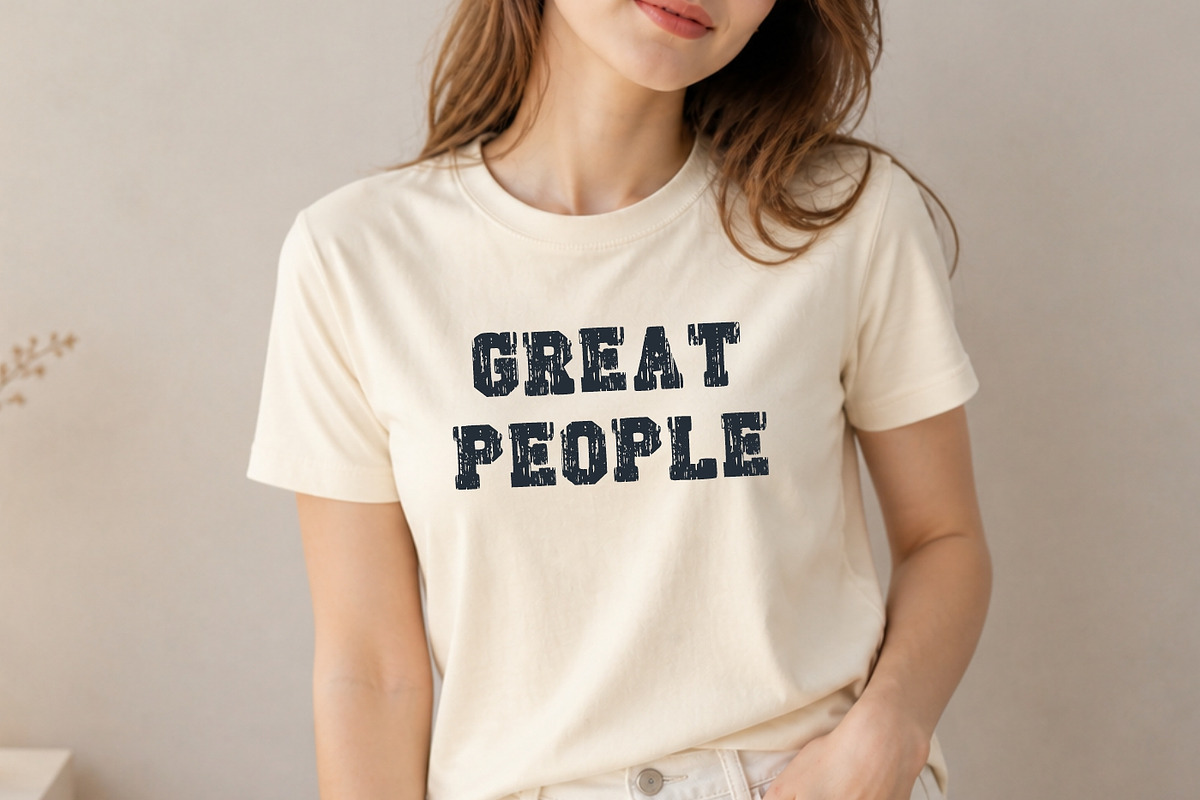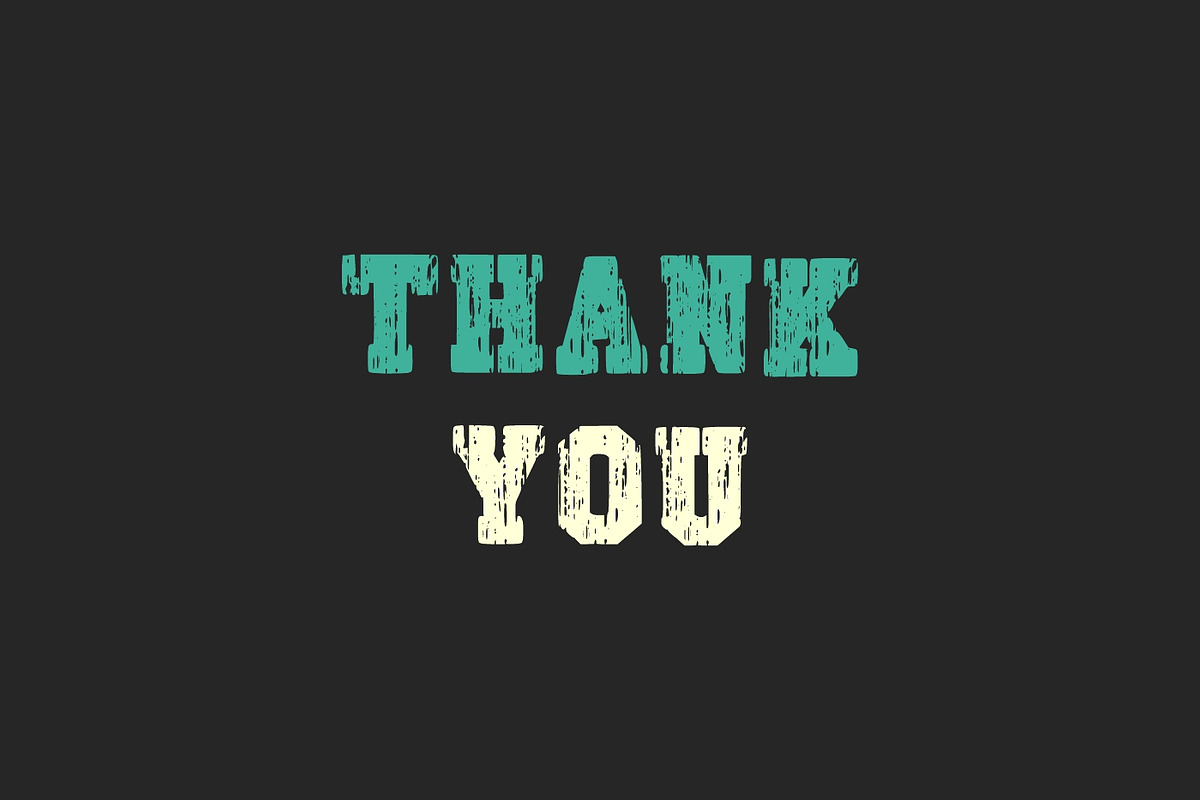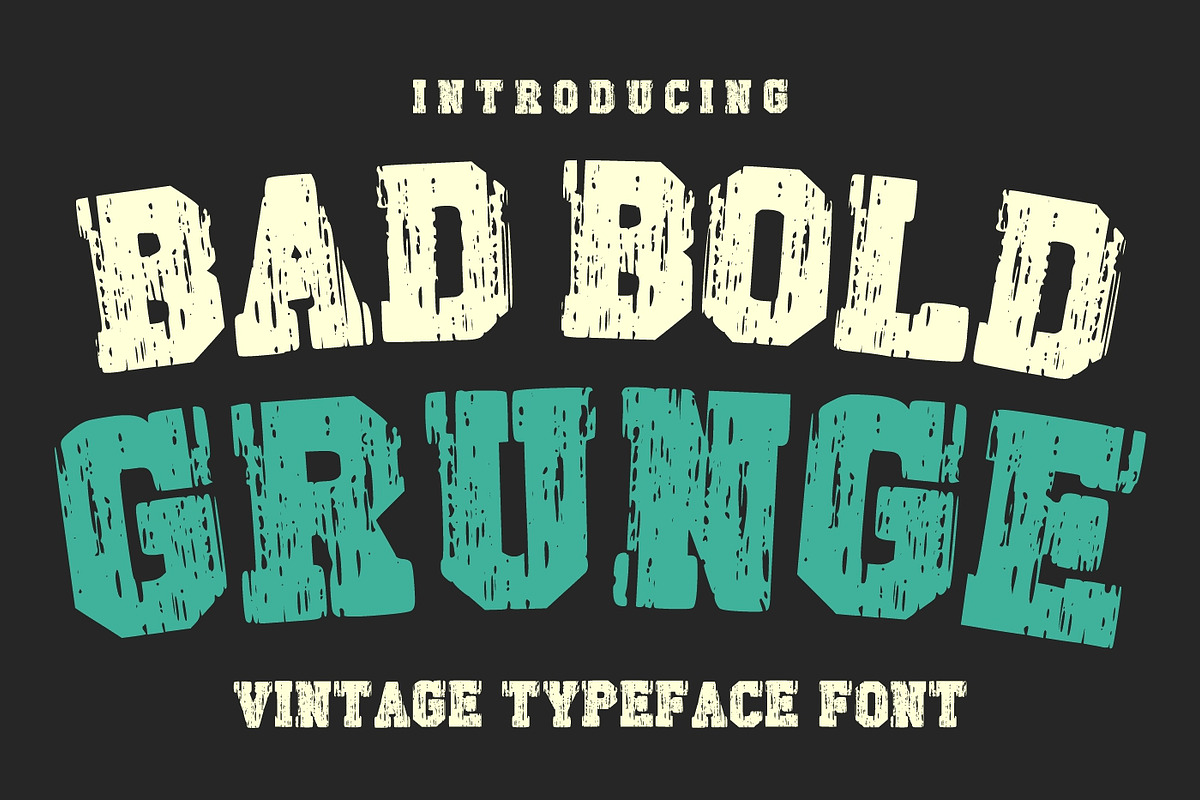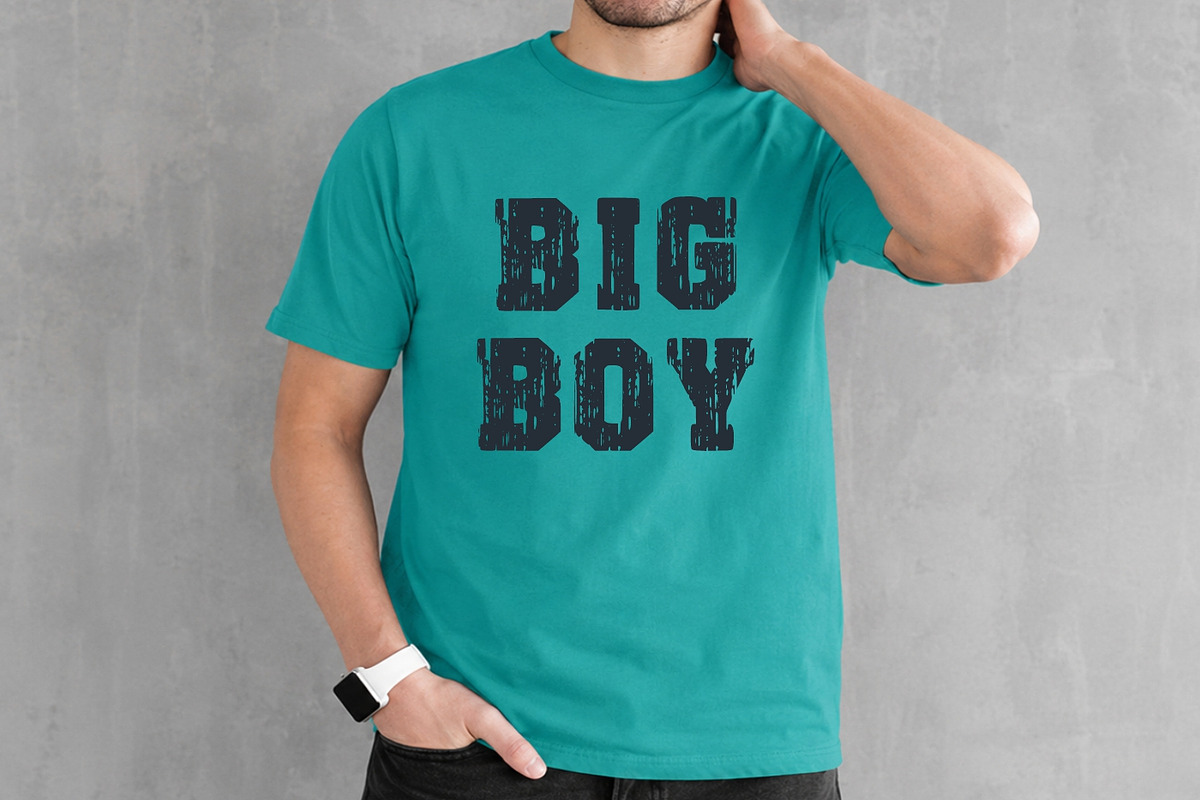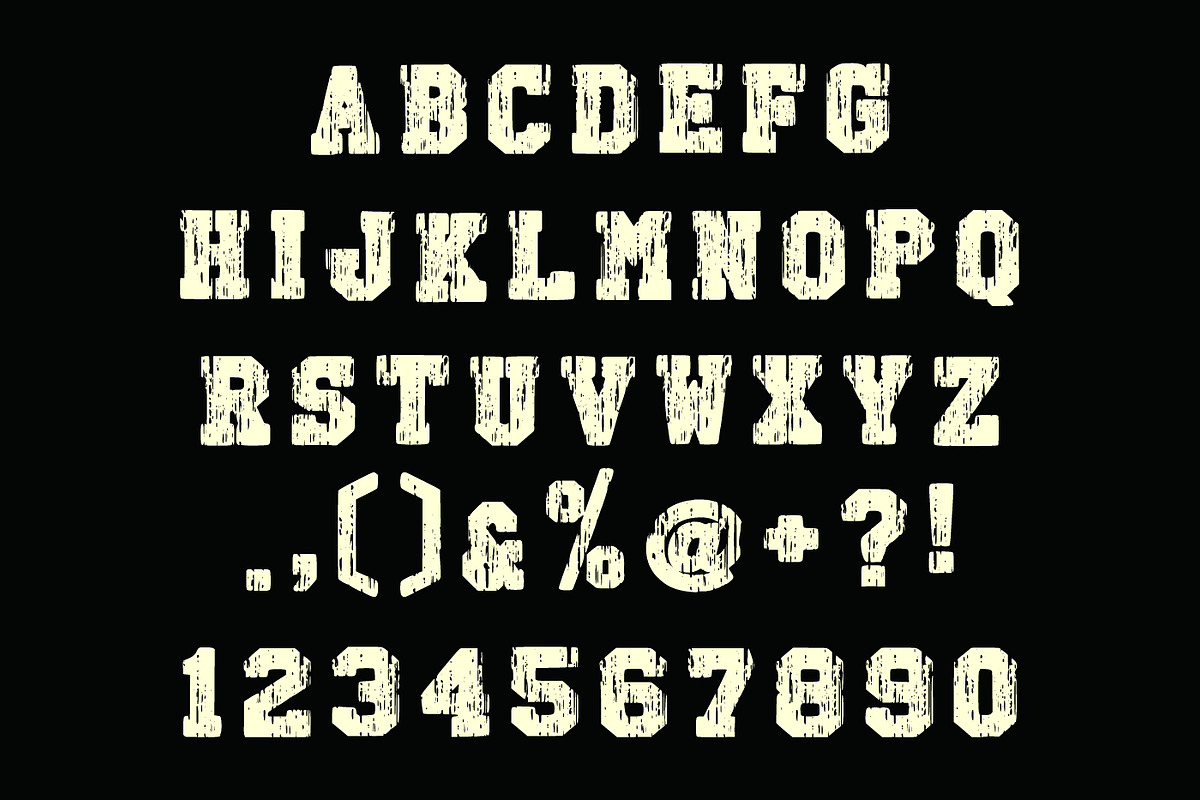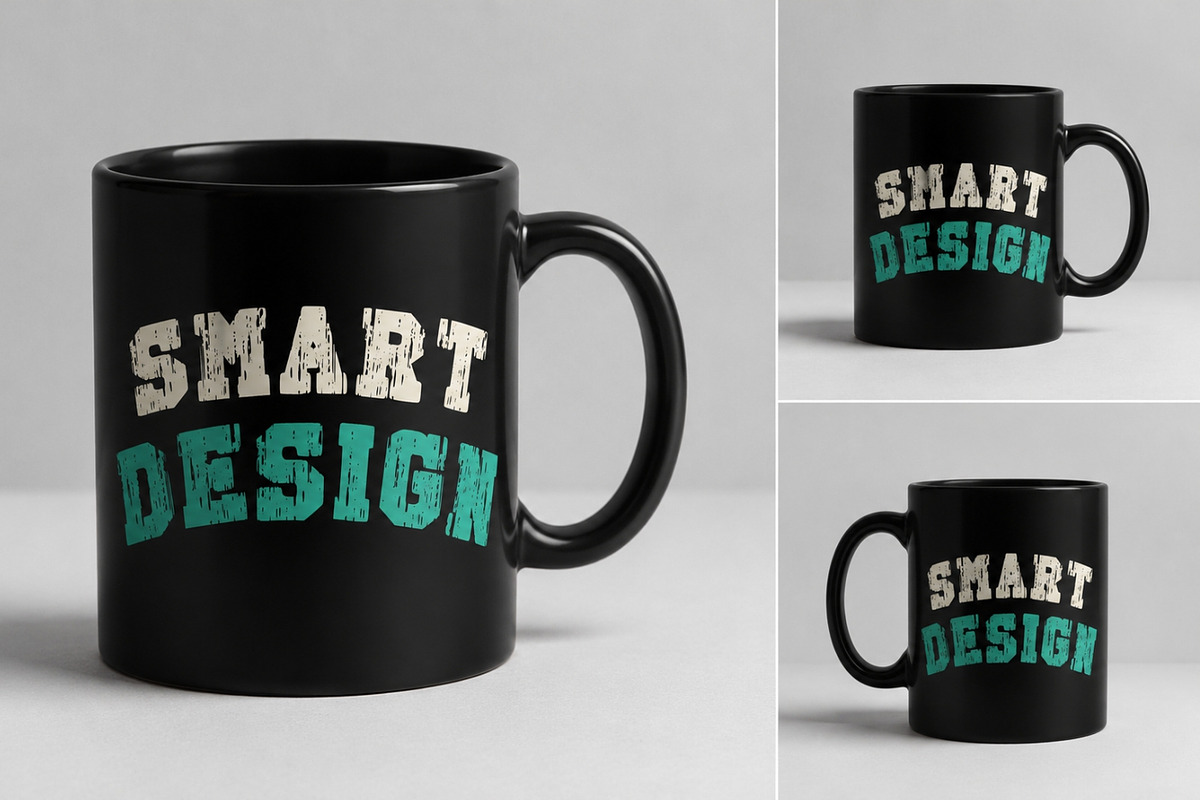
Bad Bold Grunge
Bad Bold Grunge is a rugged vintage typeface inspired by distressed western posters, retro signage, and worn print textures. Featuring bold characters with rough grunge details, this font is perfect for logos, apparel designs, posters, branding, album covers, packaging, social media graphics, and vintage-themed projects. Its strong and authentic distressed style gives your designs a bold retro personality with a classic western touch.